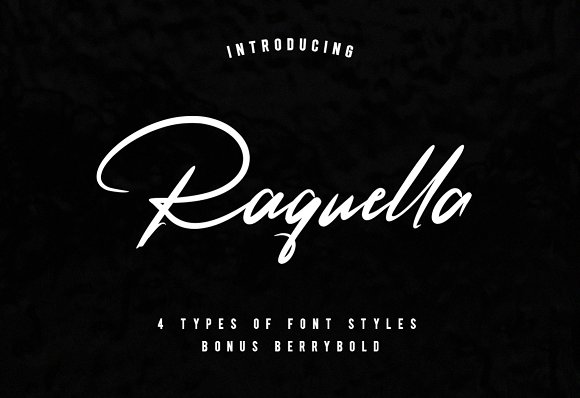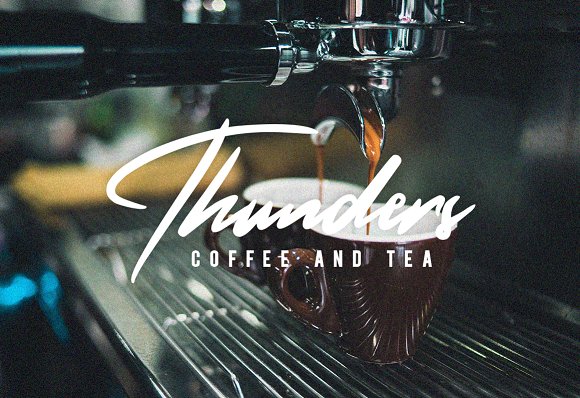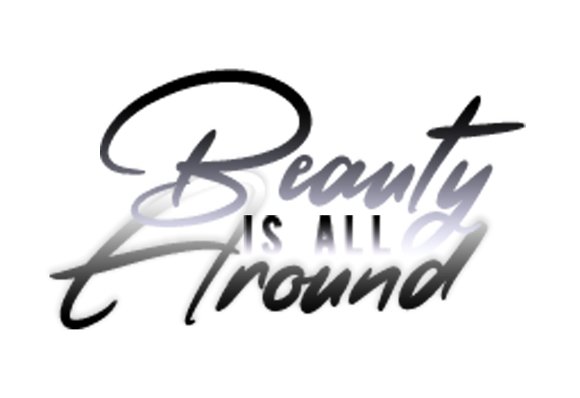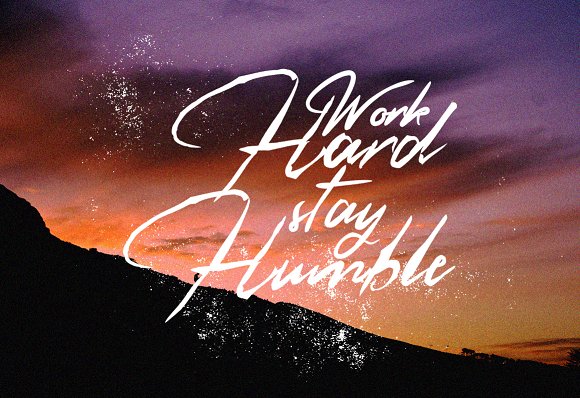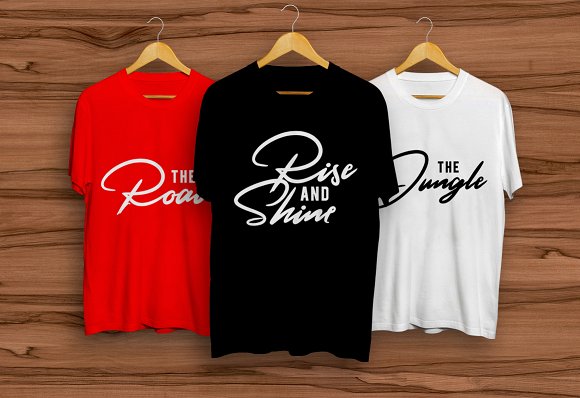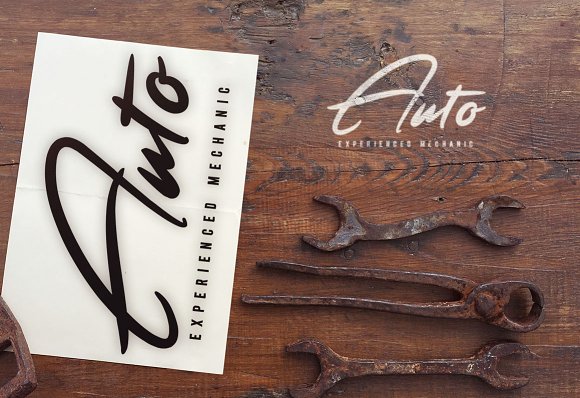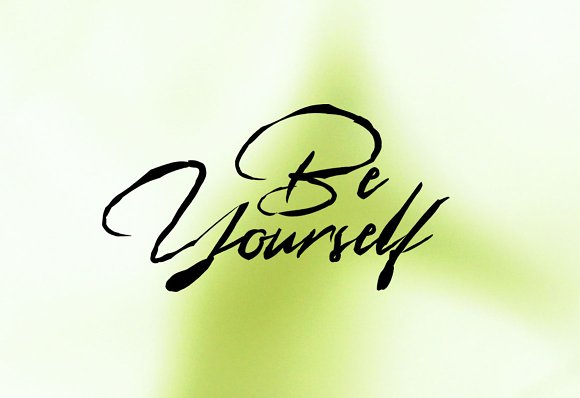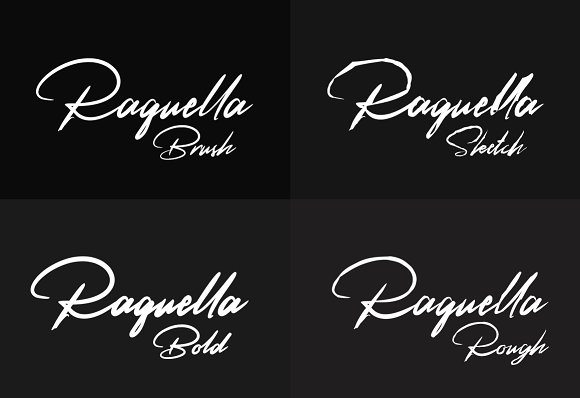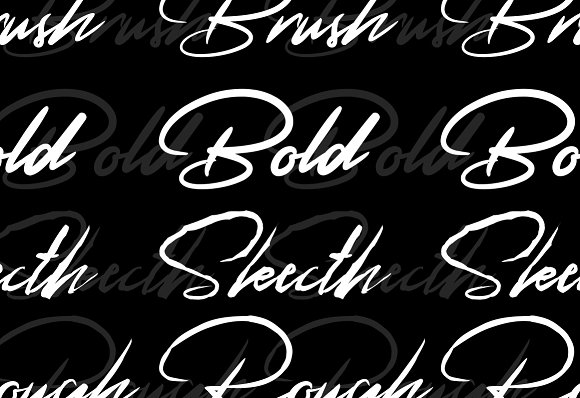
Raquella Font
About Raquella Font
Raquella is a neat, elegant handwritten font.
It’s packed with swashes and other opentype features and comes in 4 variations: Bold, Rough, Sketch & Brush.
This is the perfect pack for adding a personal touch to your designs. You can easily mix and match the 4 fonts to make a versatile design.